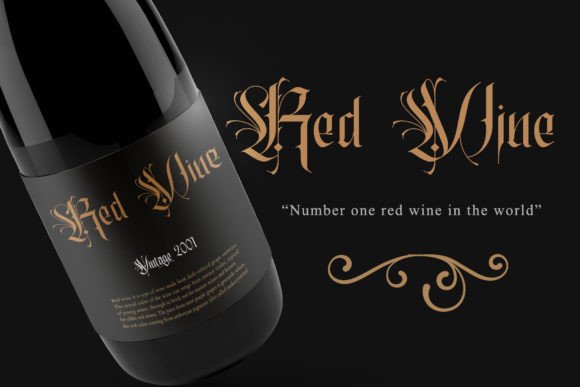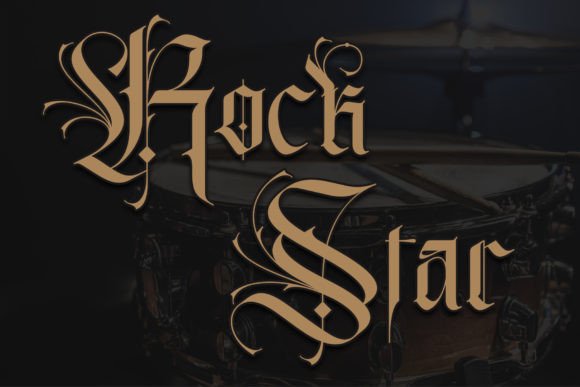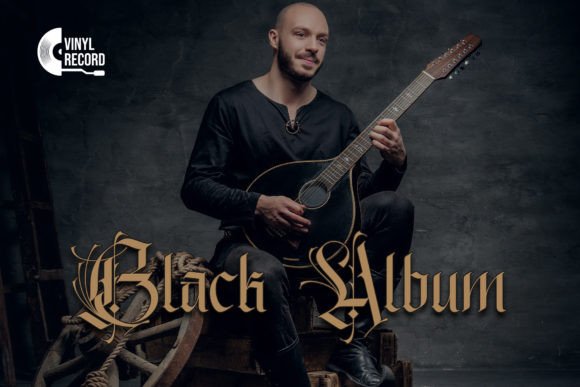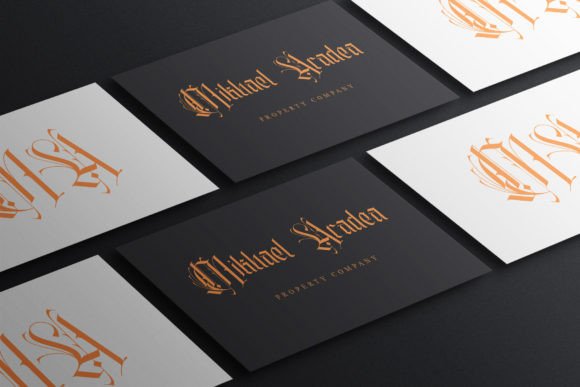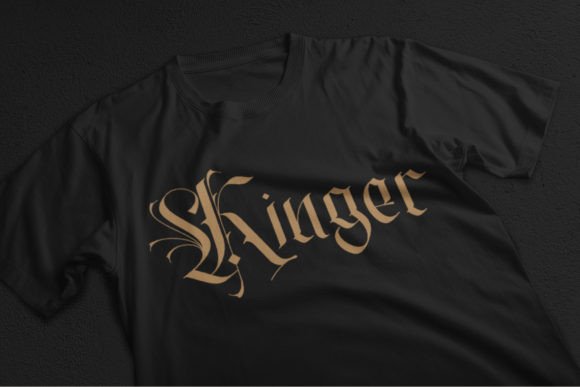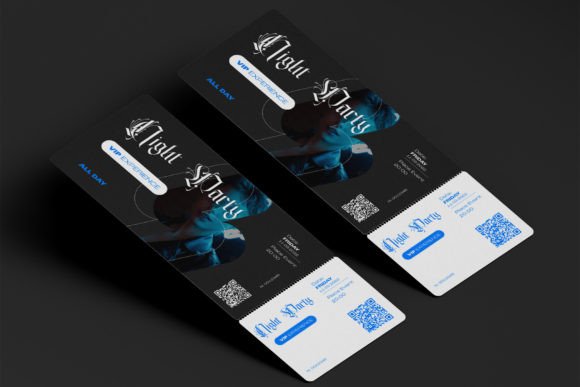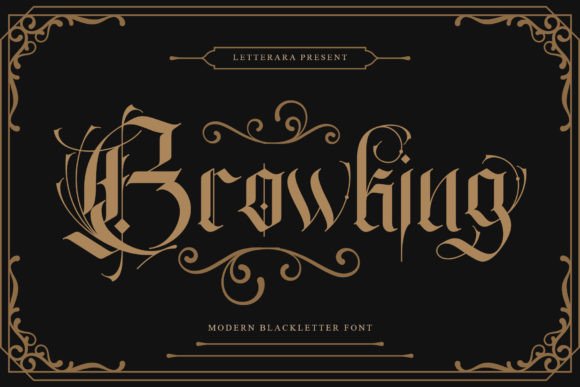
Browking Font: Elevate Your Designs with Bold, Distinct Elegance
In the world of typography, a font can make or break a design. For designers and crafters looking to add a touch of boldness and elegance to their projects, Browking Font is an exceptional choice. This stunning blackletter font is designed to impose its presence, featuring uniquely shaped letters that effortlessly match a wide range of creations requiring a distinct touch.
What Makes Browking Font Stand Out?
Browking Font is not just another addition to the vast sea of typefaces. It stands out with its bold, distinct, and elegant design. This blackletter font is meticulously crafted to bring a sense of grandeur and sophistication to any project it’s used in. Whether you’re working on product packaging, branding, or any other project that demands bold and daring typography, Browking Font is up to the task.
Key Features of Browking Font
- Bold and Distinctive Design: The font’s bold design ensures it captures attention and makes a lasting impression. Its distinctiveness sets it apart from more traditional fonts, offering a fresh alternative for designers.
- Elegant Blackletter Style: The elegant blackletter style of Browking Font lends an air of sophistication and luxury, making it perfect for high-end branding and packaging.
- Versatility: Thanks to its unique design, Browking Font can be used across various projects, from product packaging and branding to advertising and digital media, providing a consistent and striking visual identity.
Applications of Browking Font
The versatility of Browking Font makes it suitable for a myriad of applications. Here are a few ideas to get you started:
- Product Packaging: Give your products a standout look with Browking Font. Its bold and elegant design is sure to make your product labels and packaging more appealing to potential customers.
- Branding: Establish a strong brand identity with a font that exudes confidence and luxury. Browking Font can help your brand make a memorable impression.
- Advertising: Whether it’s for print or digital ads, Browking Font can help your message stand out in a crowded marketplace.
- Stationery and Merchandise: Elevate your stationery, business cards, and merchandise with a touch of elegance and boldness.
Tips for Using Browking Font Effectively
To maximize the impact of Browking Font, consider the following tips:
- Contrast is Key: Use Browking Font in combination with simpler fonts to create visual contrast and hierarchy in your designs.
- Play with Sizes: Experiment with different font sizes to emphasize certain words or phrases, adding depth to your typography.
- Utilize Swashes and Glyphs: Take full advantage of the PUA encoding by incorporating swashes and glyphs into your design to add flair and personality.